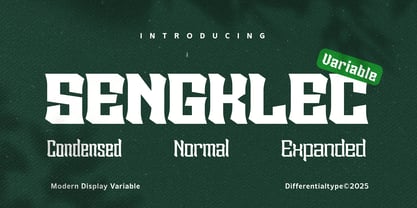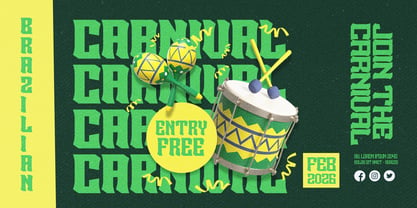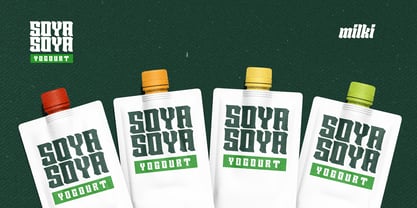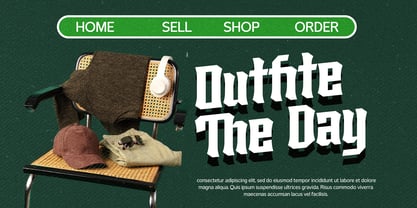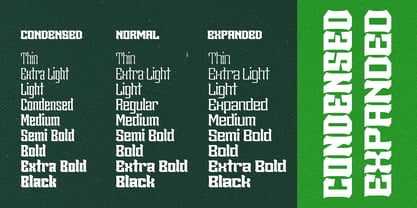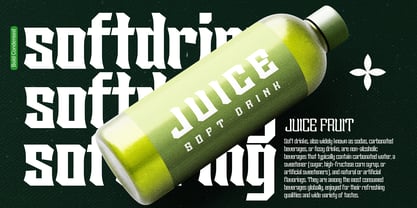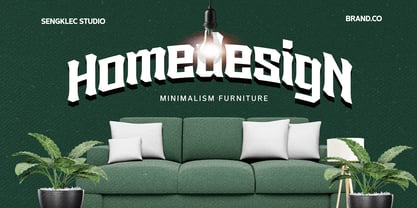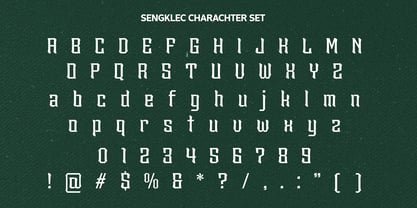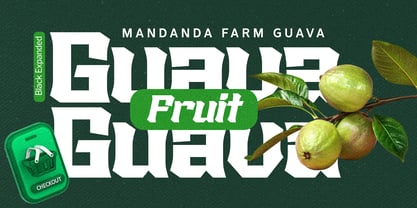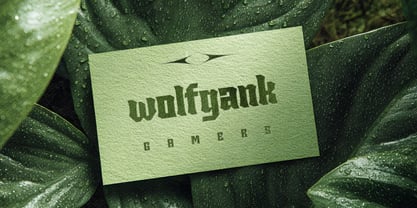
Sengklec Variable
by Differentialtype
The Sengklec Variable Font Family was designed by Sidik Sidik and published by Differentialtype. Sengklec Variable contains 1 styles. More about this family
Sengklec Variable is a versatile display font that offers a full range of dynamic styles, including various weights, widths, and italic variations.
What makes it unique is its masterful blend of sleek, modern aesthetics with a distinctive blackletter influence. The result is a captivating and characterful appearance. With such a rich array of styles, you'll always find the perfect option for any design need, from the most subtle to the most striking.
With its strong and stylish character, Sengklec Variable is an ideal choice for a wide range of design applications demanding visual impact. Whether you're creating a striking poster, a memorable logo, an attention-grabbing headline, or building unforgettable product branding, Sengklec Variable can bring your creative vision to life. Its exceptional flexibility makes it a valuable asset for designers looking to inject uniqueness and power into their work.